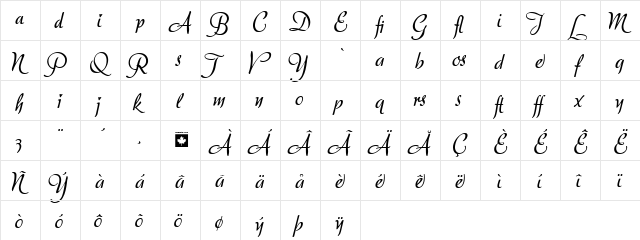
Adore Alt Regular
Design Context for Adore Alt Typeface
Adore Alt is a composed and adaptable typeface that performs quietly and consistently across a wide range of design contexts.